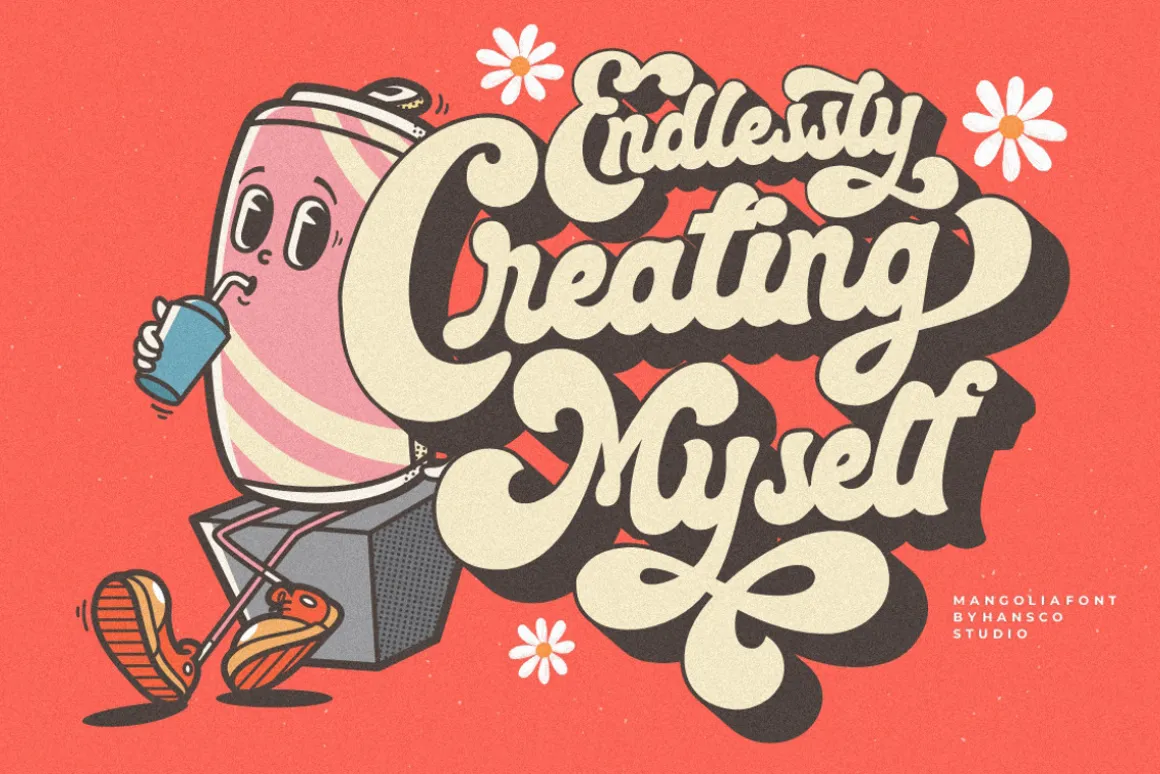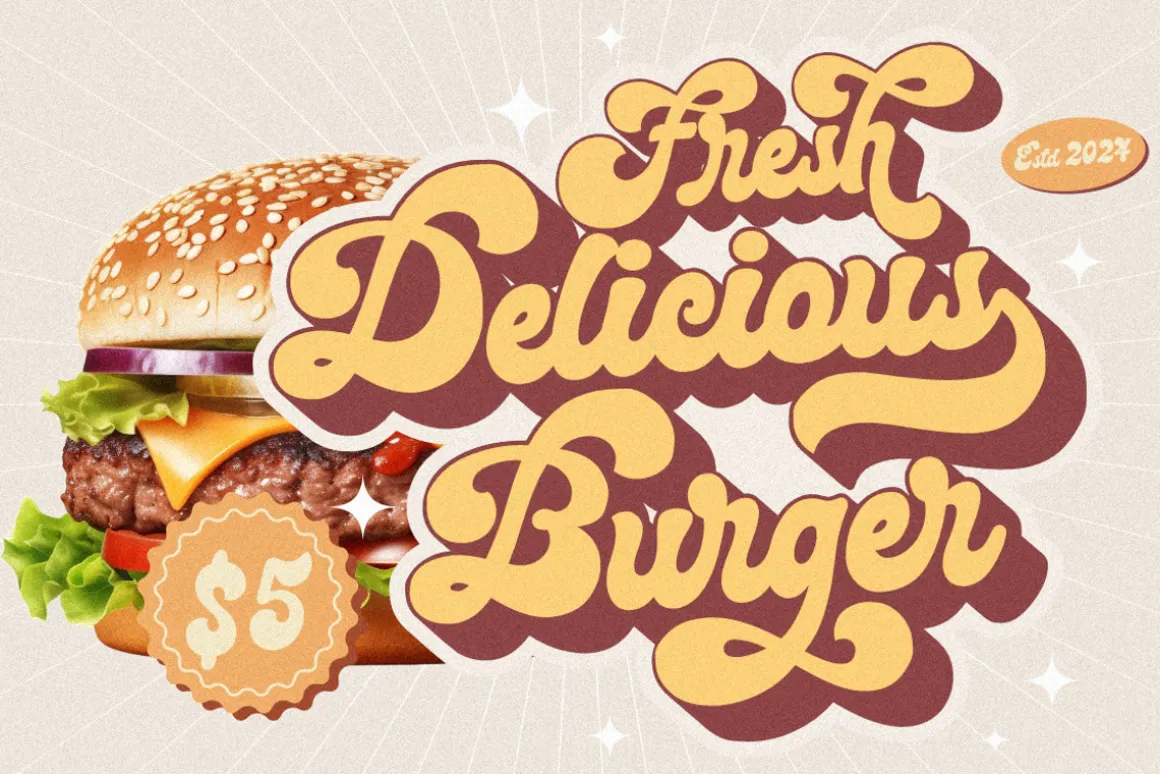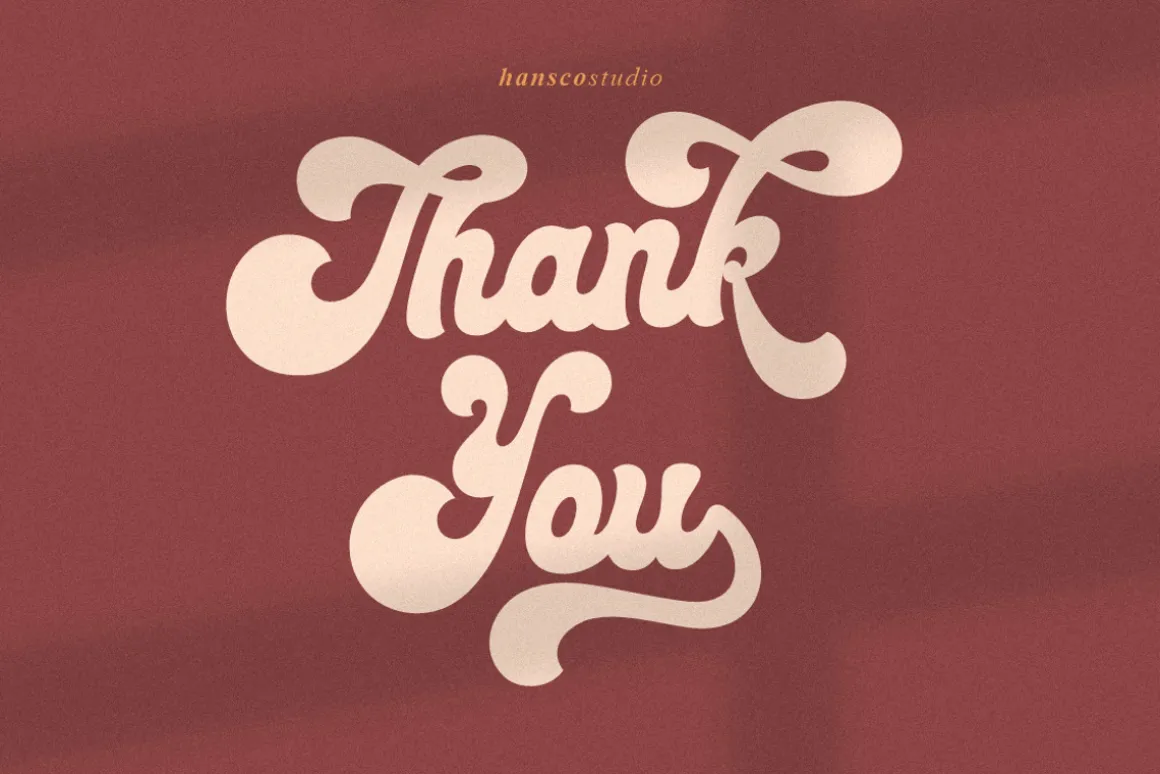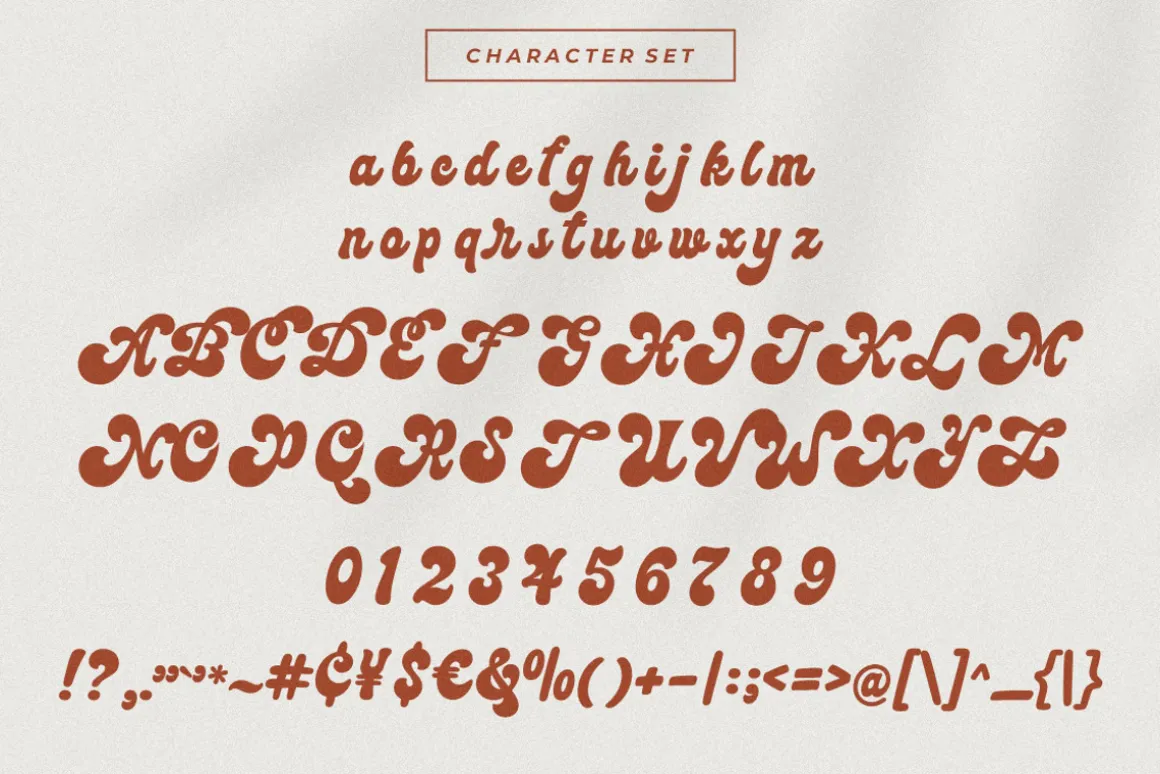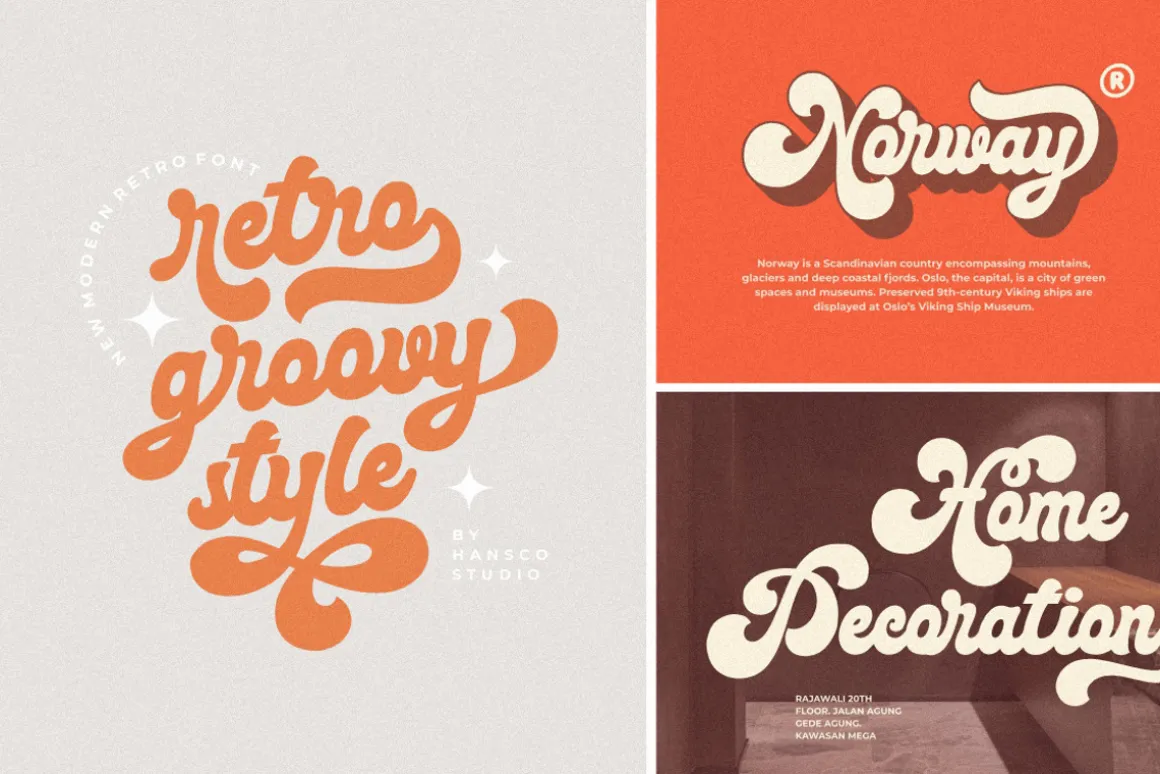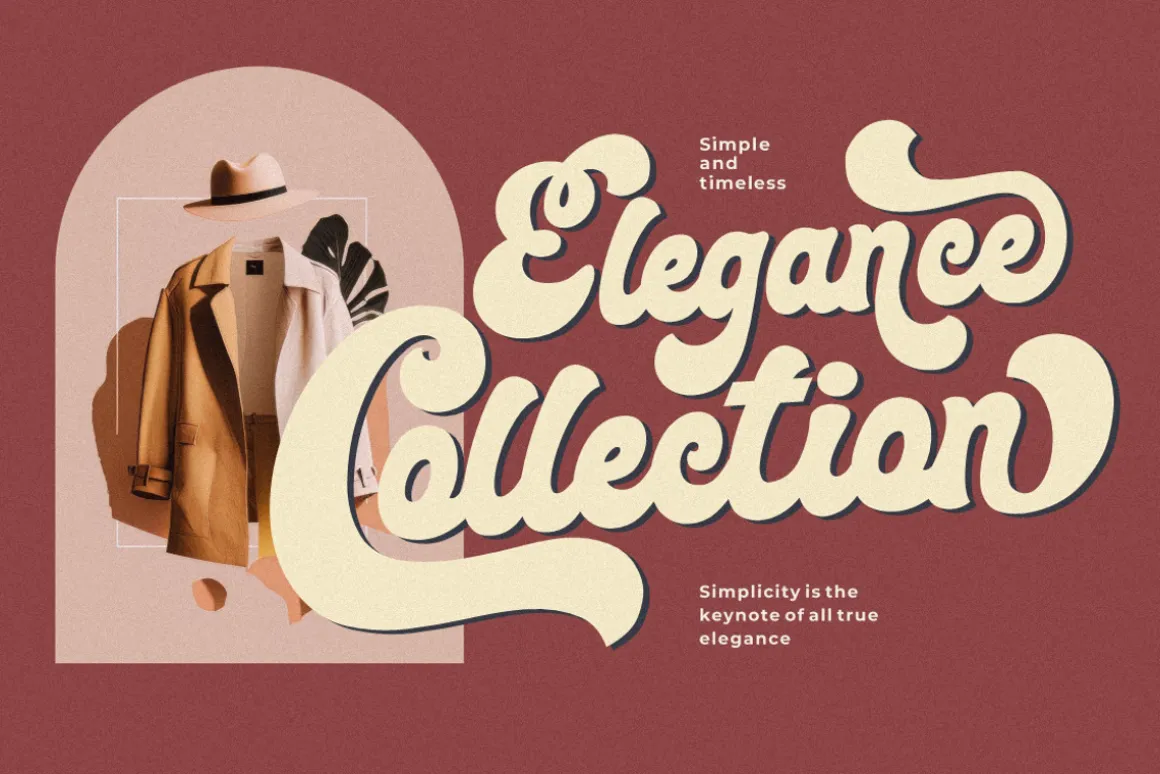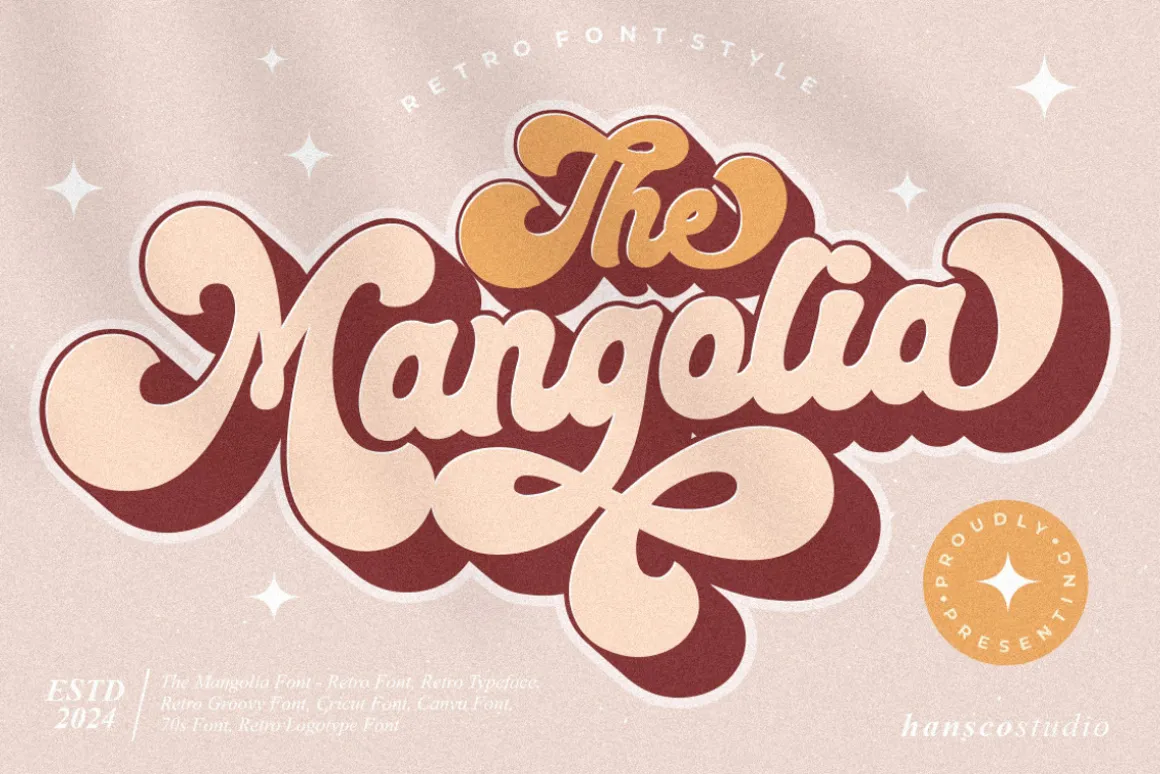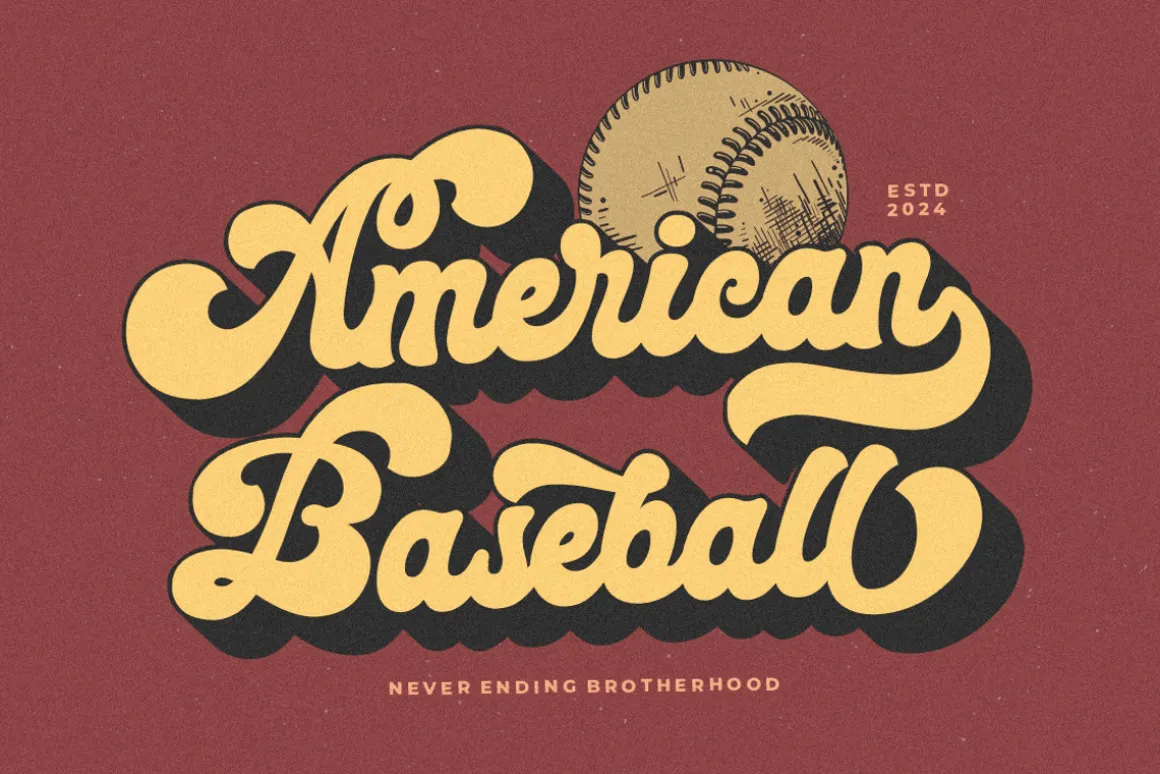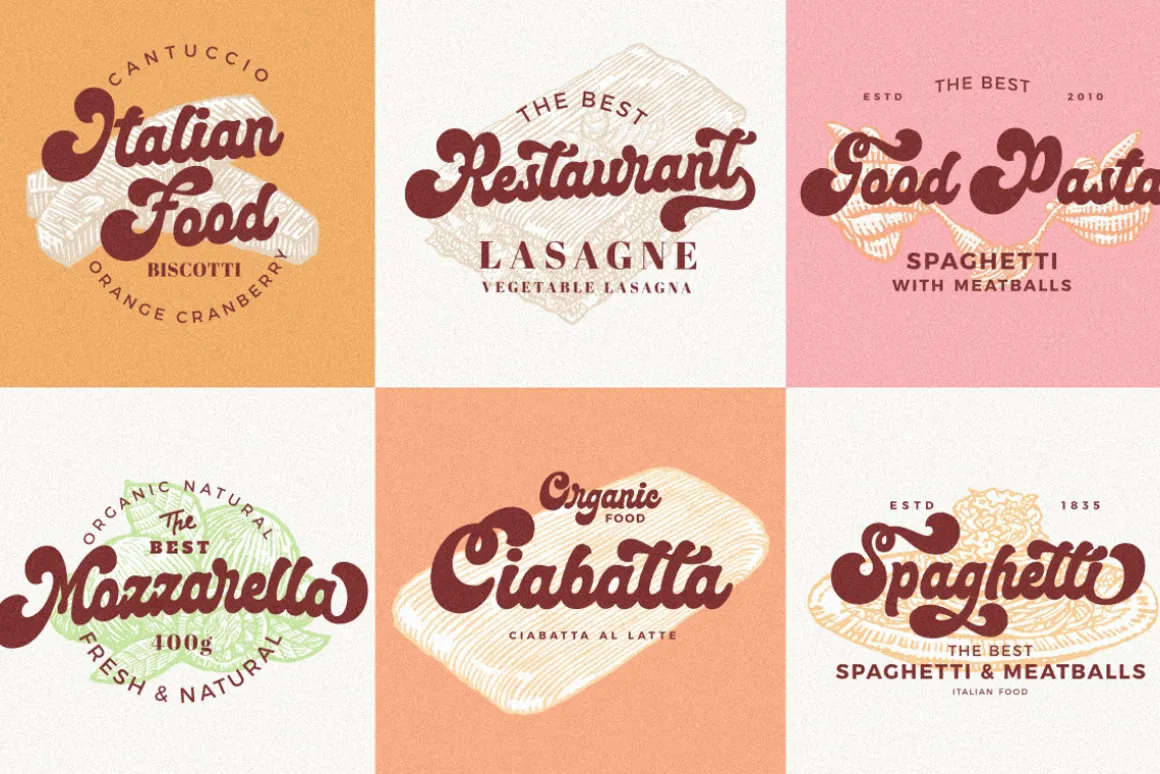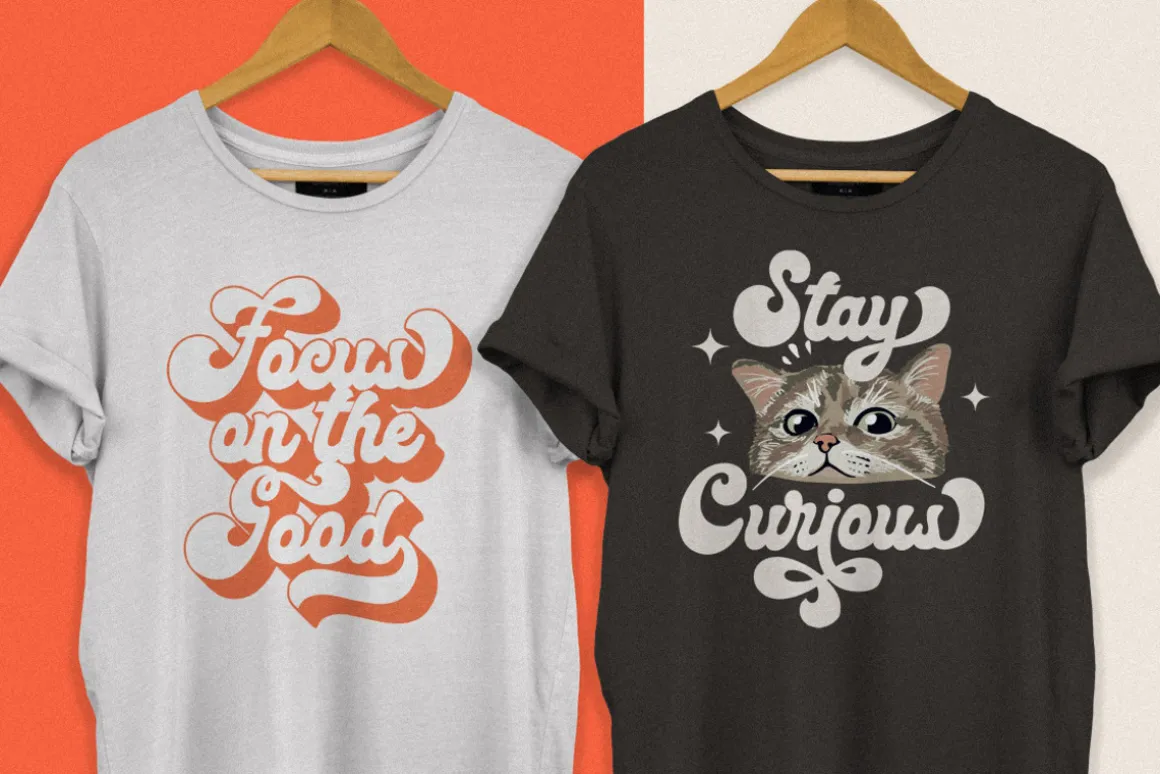
Mangolia Font is a modern, clean and cute retro font style. You will also get extra shadow/outline fonts in this font pack to make your design projects perfect. Use this display font to add that special retro touch to any design idea you can think of!. Equipped with all complete characters ranging from uppercase letters, lowercase letters, numbers, punctuation marks and multi-lingual support, this font is ready to be used in any project. Very suitable for logotype, Stickers, Packaging design, Cricut Project, headlines, brand identity, t shirt or apparel industry, posters, magazines, books, YouTube, Instagram, websites, or any of your creative design projects.
- Uppercase & Lowercase
- Numbers & Punctuation
- Multilingual
- Ligatures
- Alternates
- Swashes
- Shadow